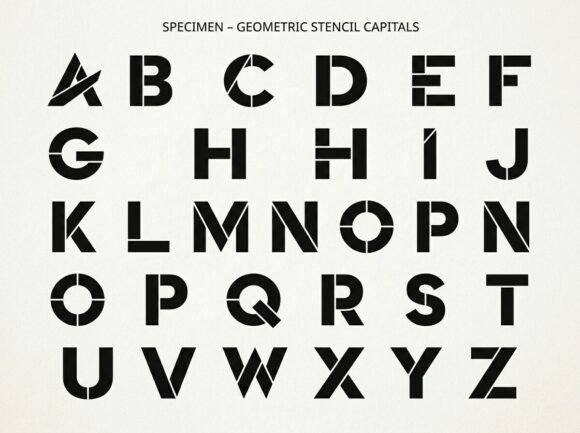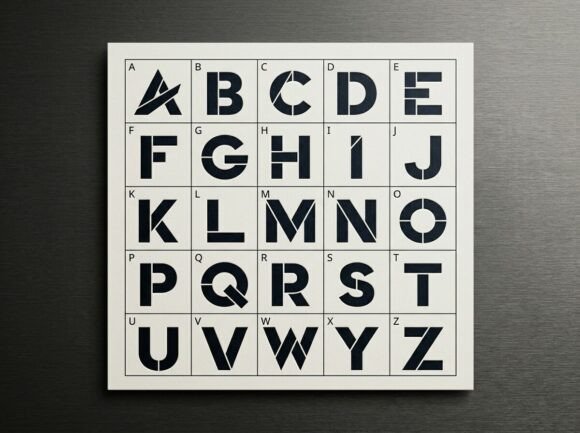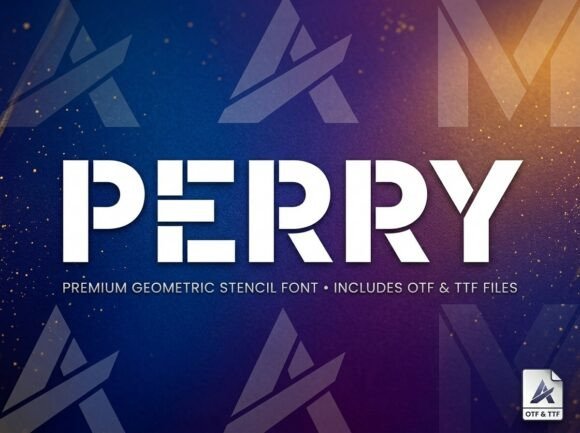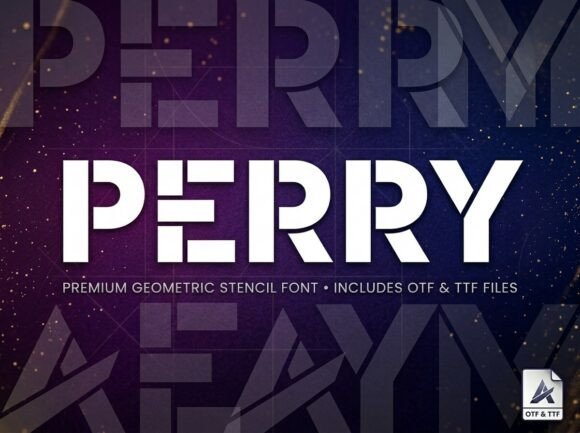
Introduction to Perry Font
Explore the intersection of industrial utility and digital minimalism with Perry, a premium geometric stencil font built for maximum structural impact.
This massive typeface features bold, blocky letterforms meticulously constructed with clean, architectural lines and precision-engineered stencil apertures Its heavy visual weight and rhythmic geometric silhouette radiate a sense of technological innovation and urban sophistication.